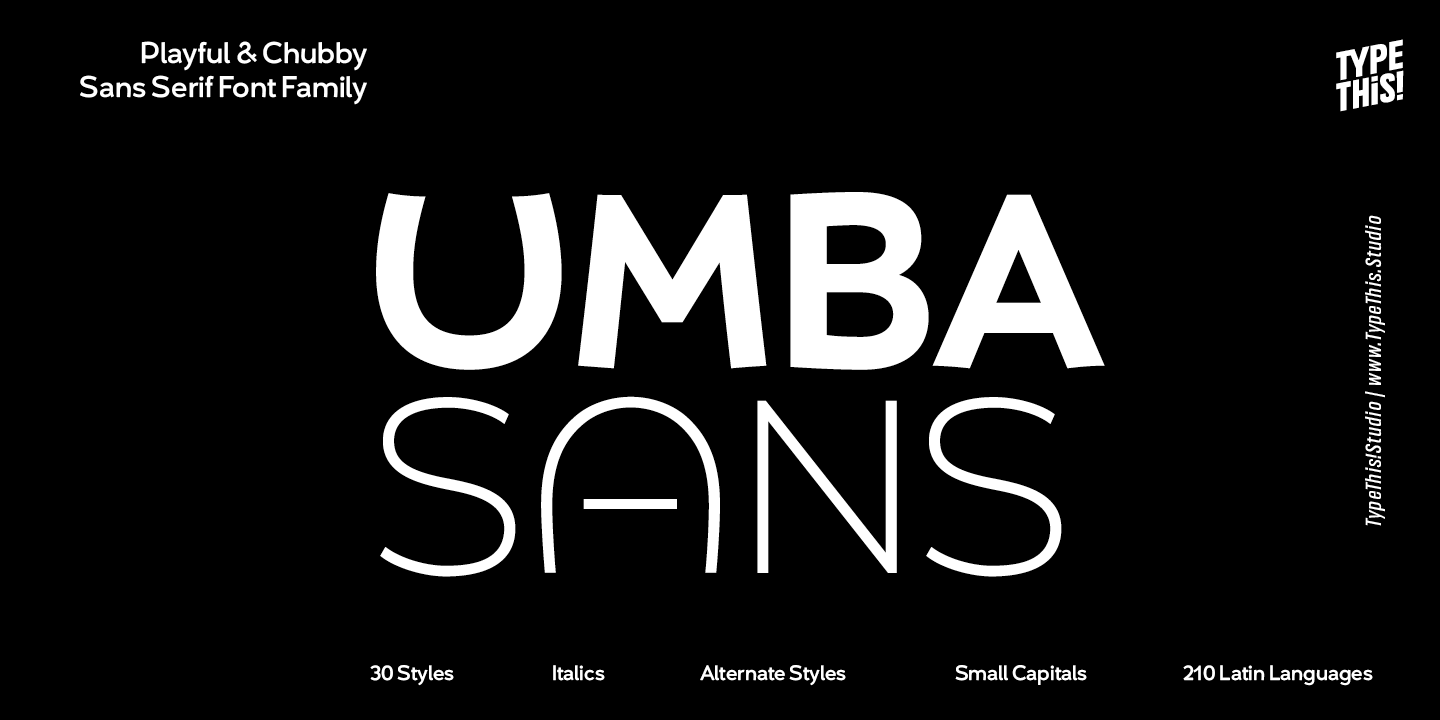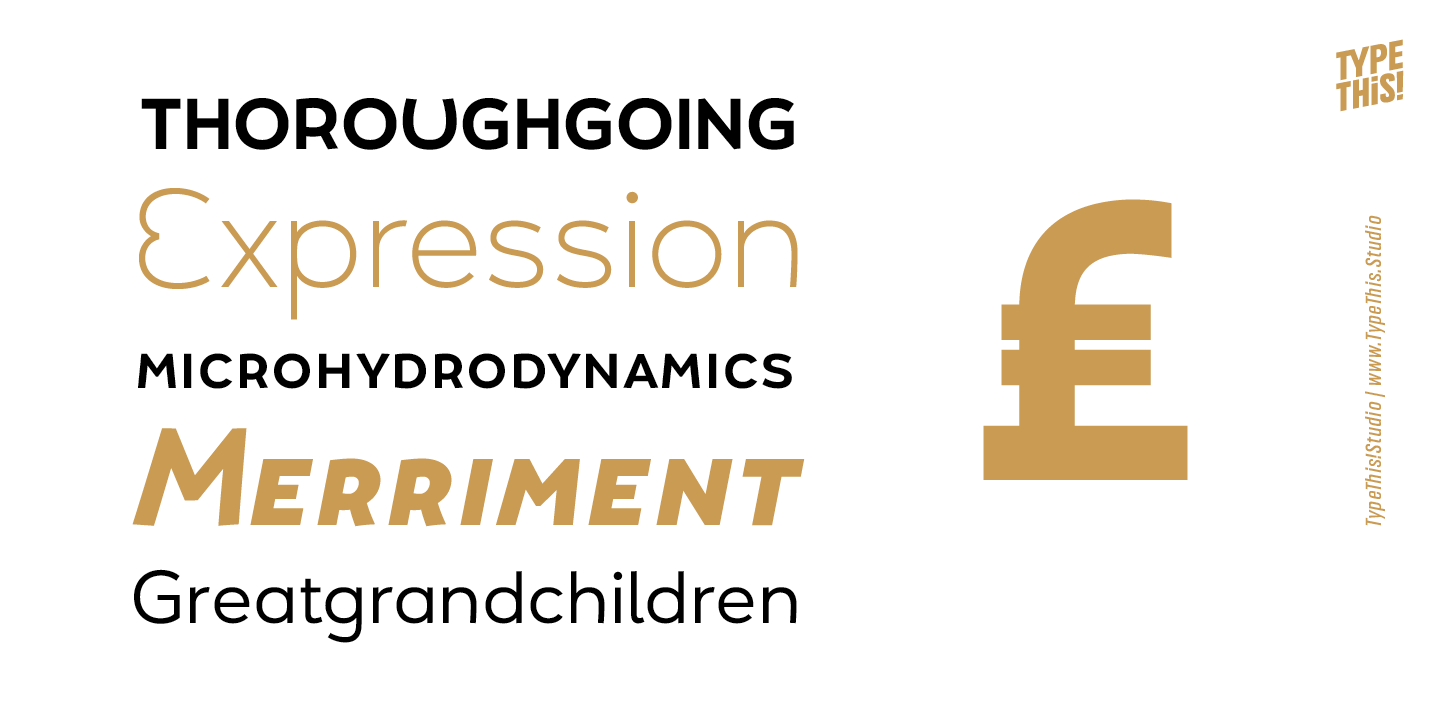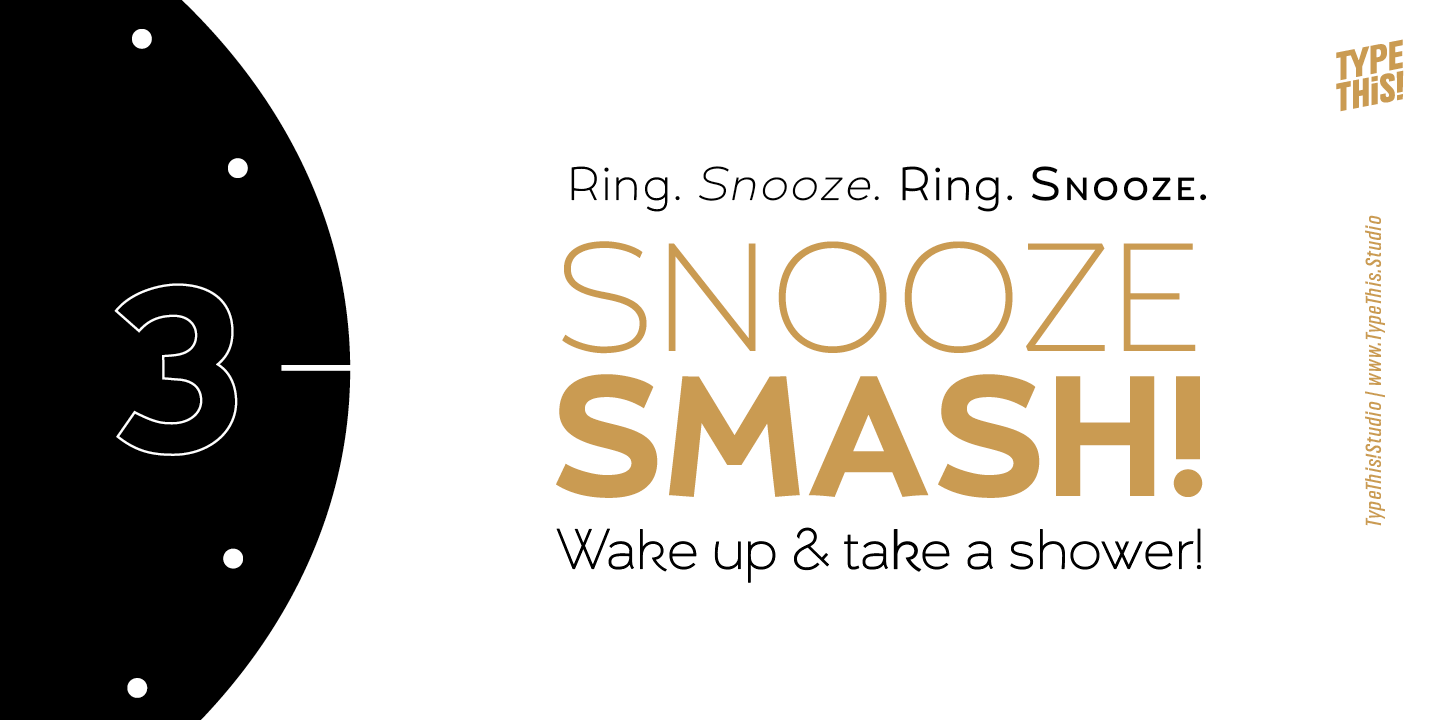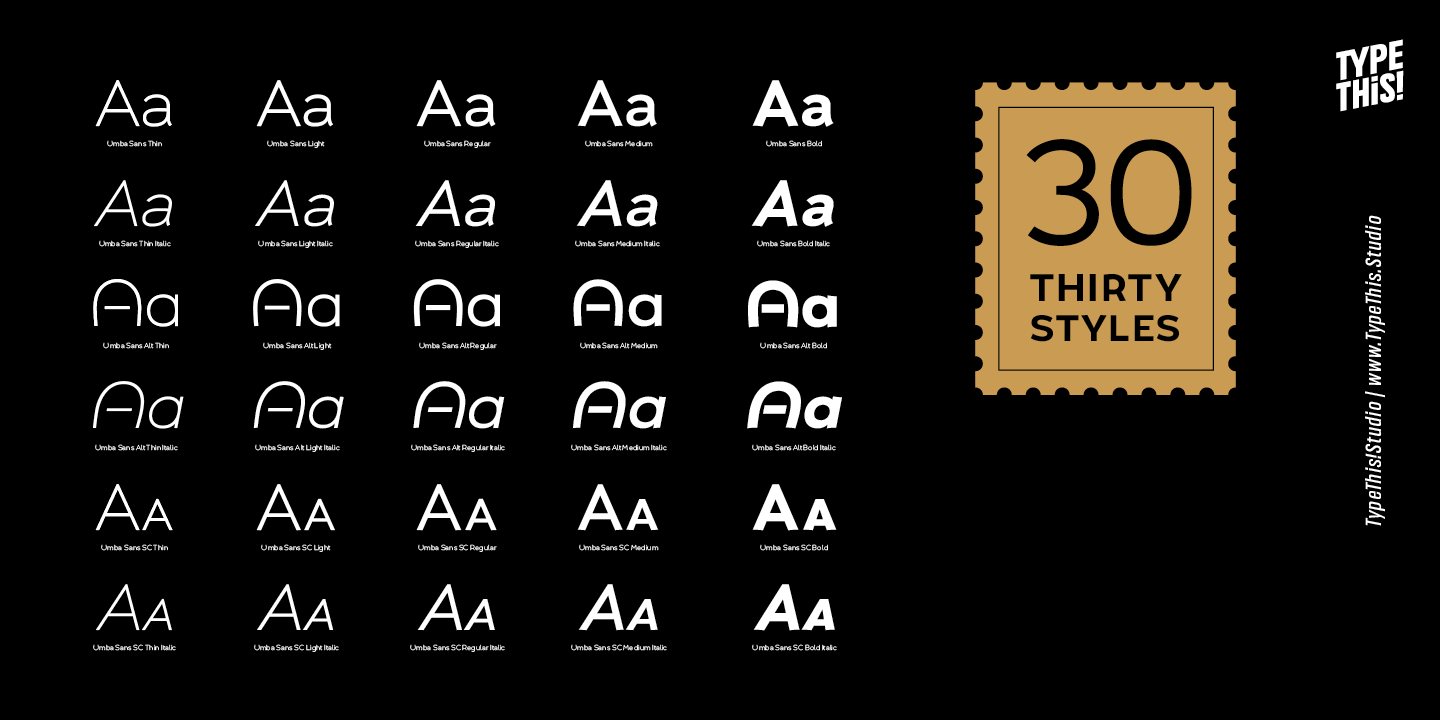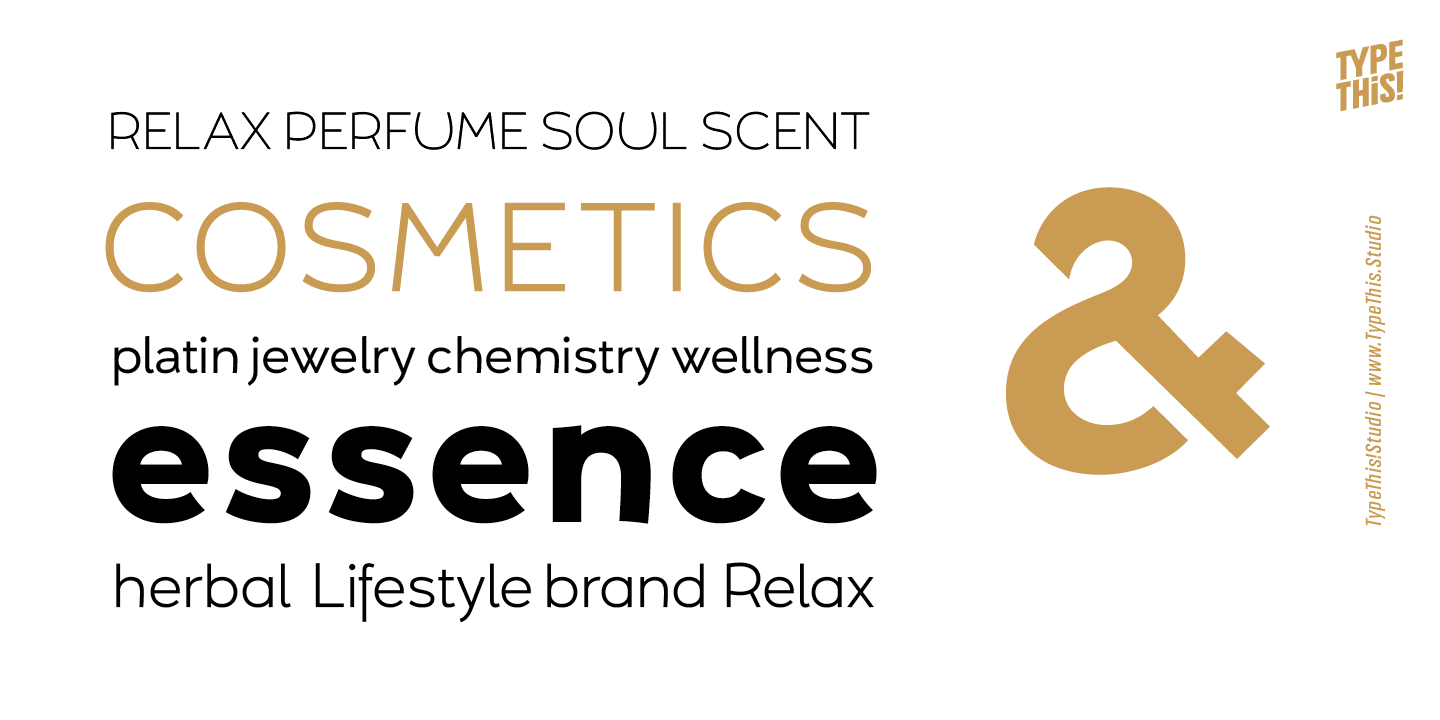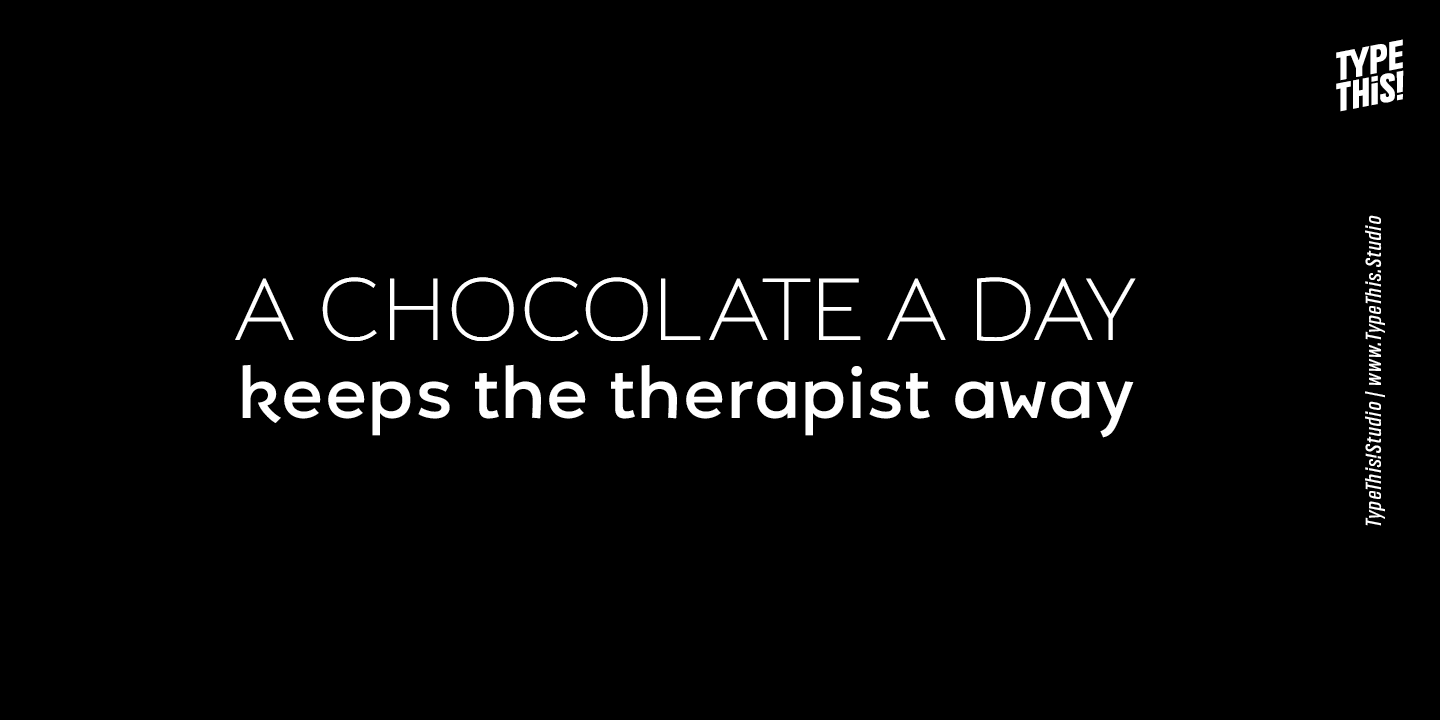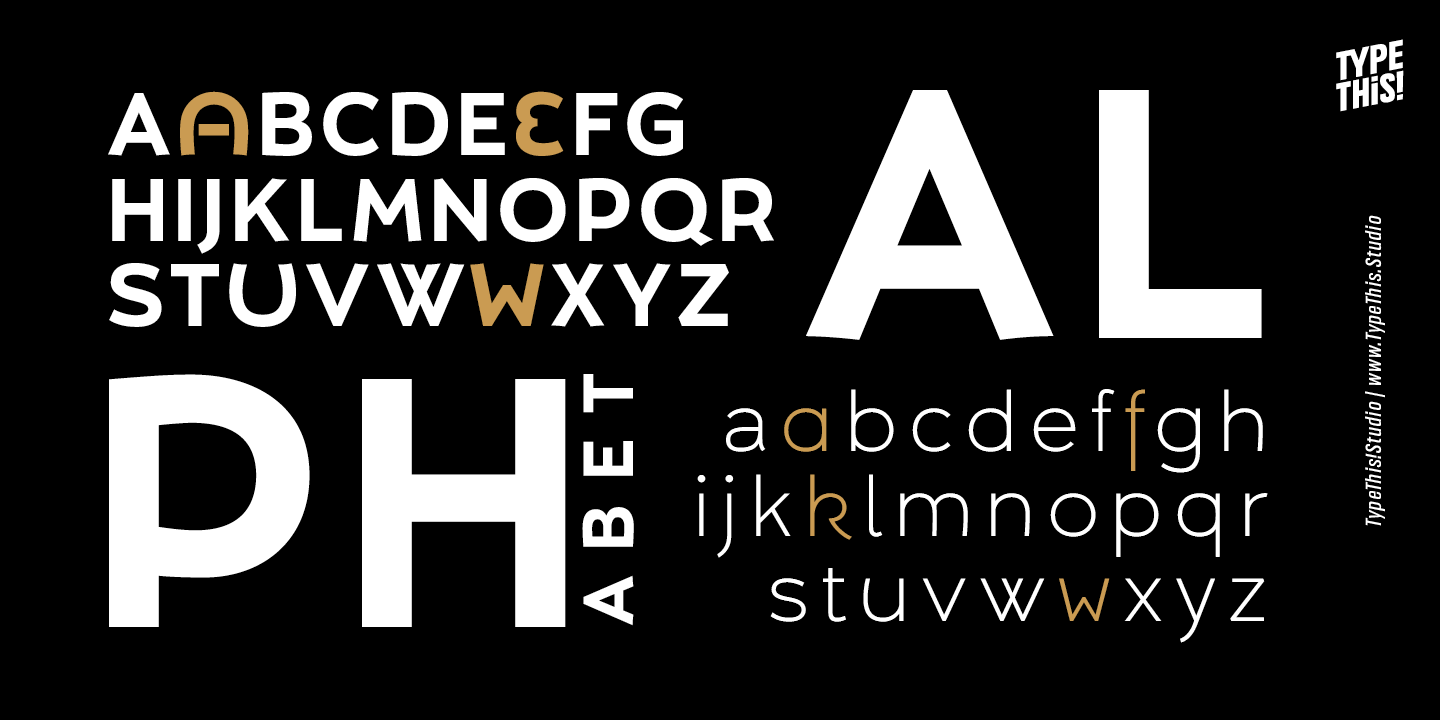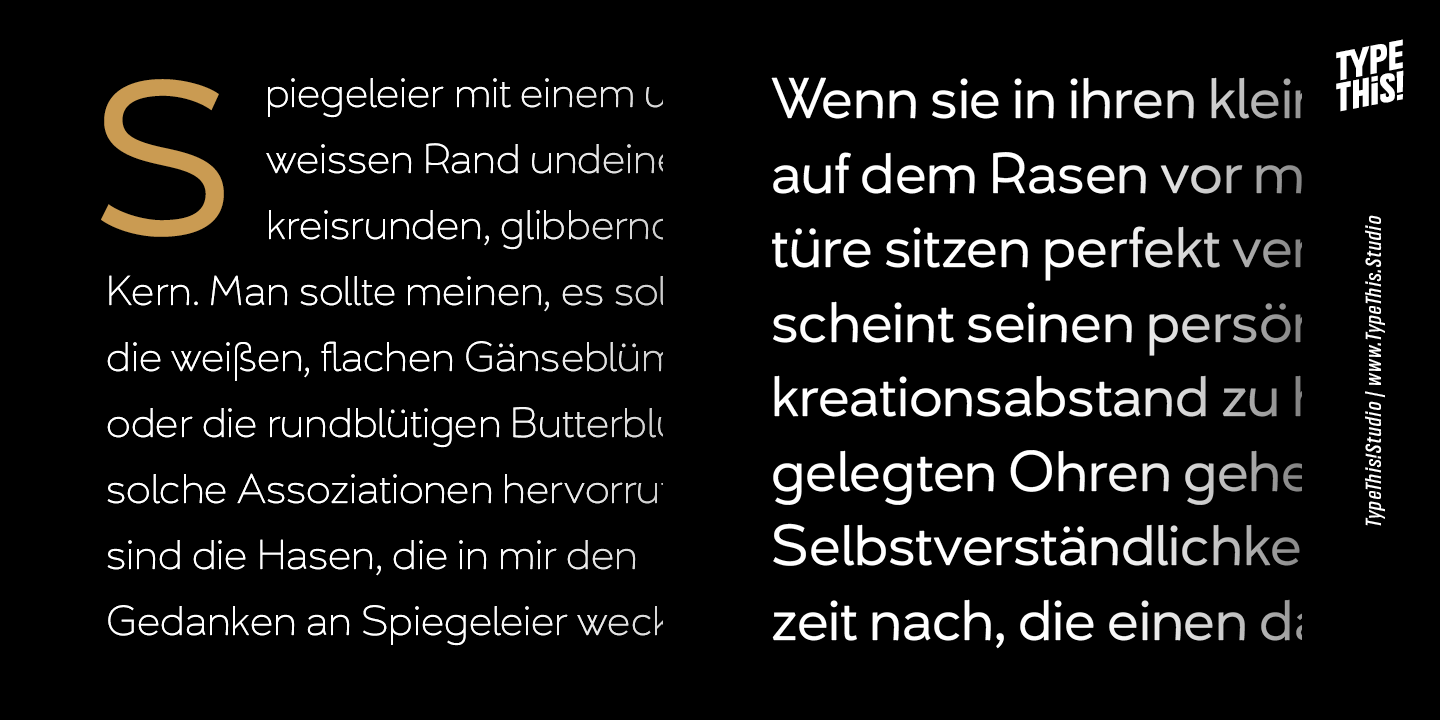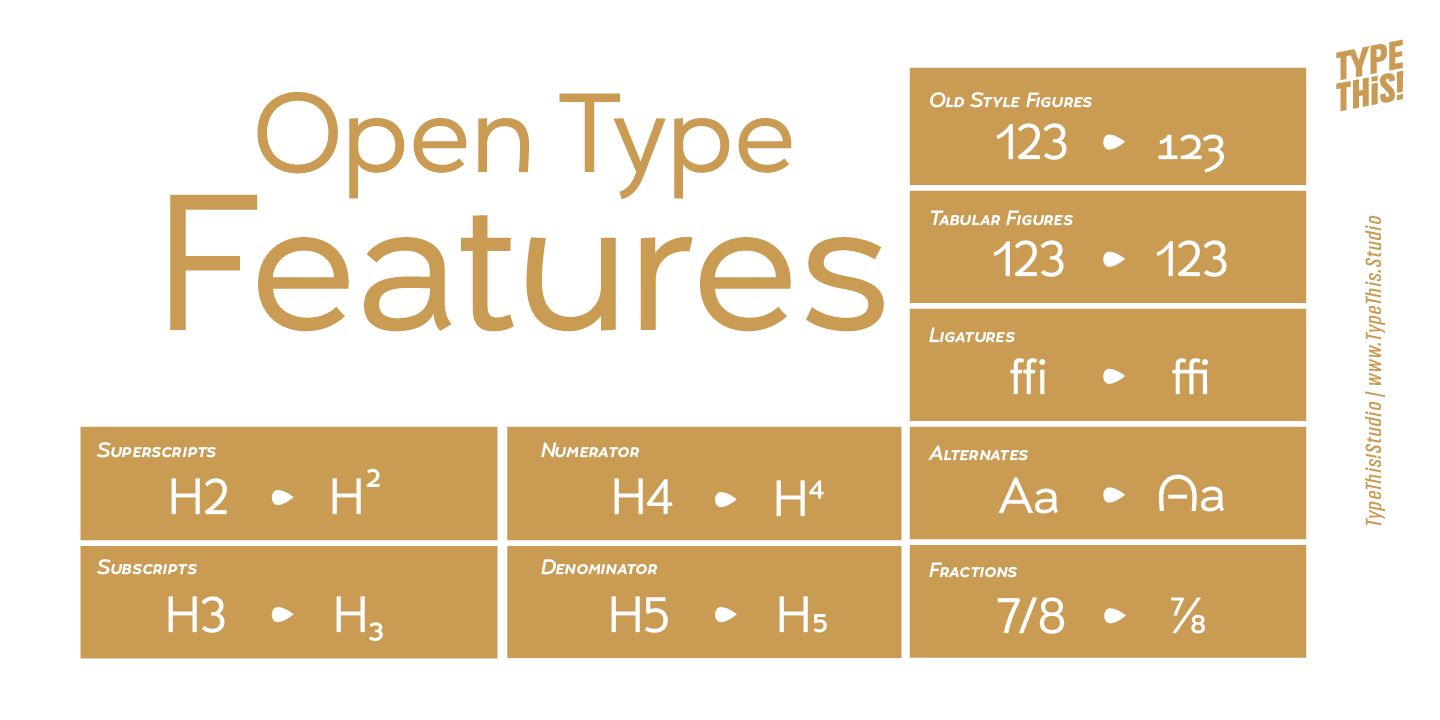
Umba Sans Family (30 fonts)
Umba Sans fulfills your corporate identity needs as well as your editorial demands. 30 styles from thin to bold and matching italics help you create a contemporary design. Separate styles for alternate and small caps styles will show up in your font menu, making sure that you stay aware of the wide range of possibilities your new favourite typeface provides.
Provided features: fractions, subscript, superscript, old style figures, tabulator figures, stylistic alternates, standard ff-ligatures.